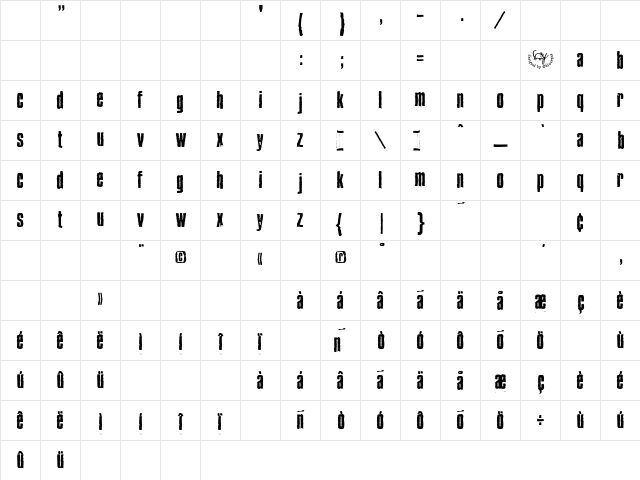
Complete BlueCake Regular glyph index. Displaying only characters natively supported by BlueCake Regular font.
BlueCake is a composed and adaptable typeface that performs quietly and consistently across a wide range of design contexts.